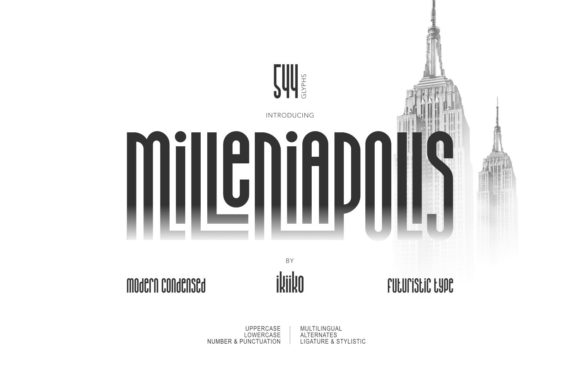
Unleash your creativity with Milleniapolis, the font that embodies the essence of modernism. This meticulously crafted sans serif font family is a testament to simplicity and playfulness. With its thin and tall characters, Milleniapolis grants you the freedom to explore diverse shapes and layouts, making it an ideal choice for those seeking a distinctive edge in their designs.
Immerse yourself in the world of Milleniapolis and elevate your branding to new heights. Its clean and contemporary aesthetic lends itself perfectly to fashion projects, magazine covers, posters, and flyers. Its versatility extends to logo designs, where it can infuse a touch of futurism and sophistication. Whether you're a graphic designer, a creative professional, or simply someone with a passion for typography, Milleniapolis is the font that will ignite your imagination.
Milleniapolis is not just a font; it's an experience. As you delve into its glyphs and swashes, you'll discover a universe of possibilities. Unleash your inner artist and let Milleniapolis guide you towards captivating designs that transcend the ordinary. Its PUA encoding ensures effortless access to the entire repertoire of characters, allowing you to effortlessly craft designs that resonate with your audience.
Embrace the allure of the future with Milleniapolis. Its sleek lines and minimalist charm will transform your designs into captivating masterpieces. Step into the realm of modern typography and let Milleniapolis be your muse. Discover the boundless possibilities that await you as you embark on a creative journey with this remarkable font.